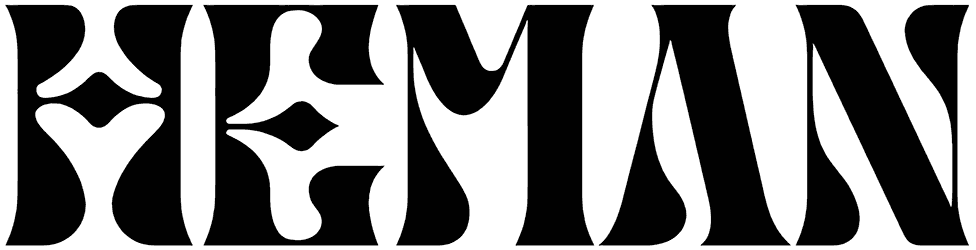
Using a distinct and eye-catching letterform is going to make your text sound cool and mesmerizing. This is what your design will have if you set this wavy font. The smooth and vivid form of this groovy font will amaze your viewers, and you have almost full coverage of its characters. Tums Twirl font is an ace pickup for many playful designs that you want to be memorable.